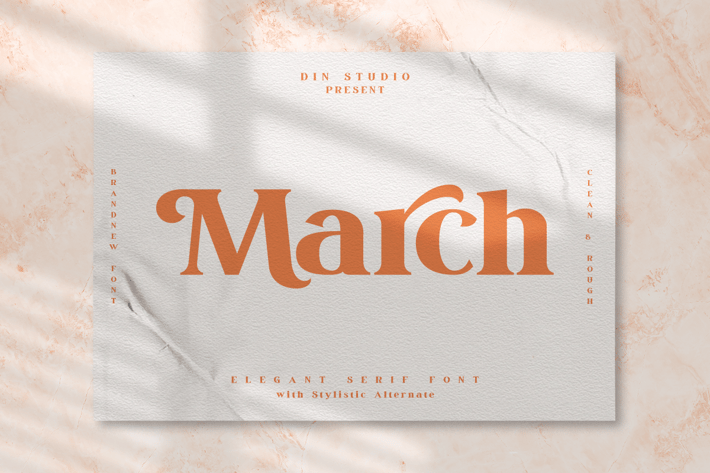
March - Modern Serif Font
The March font is a modern and clean display (Serif) font. Create from our talented font designer. The design of typeface will make your design more beautiful and inspiring. This font will suitable for any project, like branding, print template, logo and etc. The font also available in a rough version.